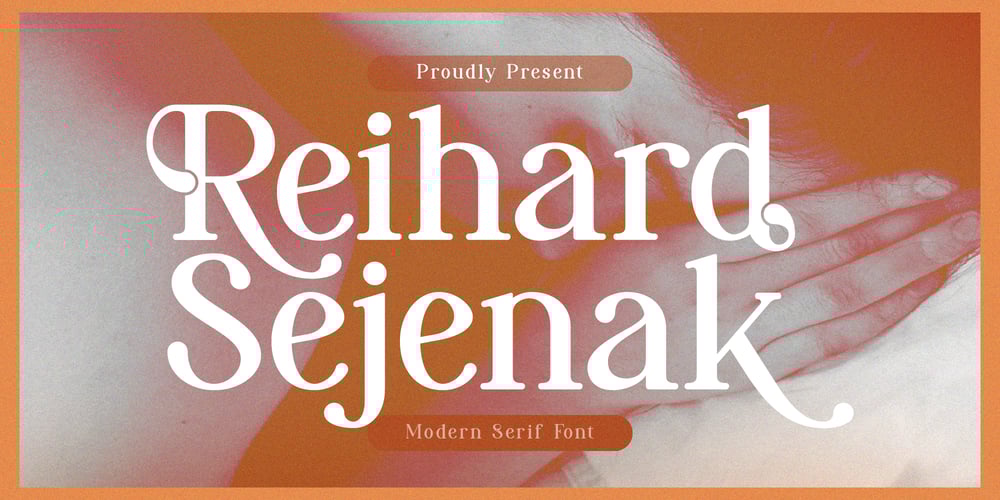
Reihard Sejenak Font Family was designed by Dede Nugraha and published by Denustudio. Reihard Sejenak contains 2 styles and family package options. Reihard Sejenak | Modern Serif, from Denustudios, suitable for any projects such as: logos, branding projects, homeware designs, product packaging, mugs, quotes, posters, shopping bags, t-shirts, book covers, name card, invitation cards, greeting cards, label, photography, watermark, special events, and all your other lovely projects that need a modern serif taste. ===============================================================What’s Included : Regular and Italic Web Font Standard glyphs Alternate and Ligature Works on PC & Mac Simple installations Accessible in the Adobe Illustrator, Adobe Photoshop, Adobe InDesign, even work on Microsoft Word and Other Software. PUA Encoded Characters – Fully accessible without additional design software. Fonts include multilingual support